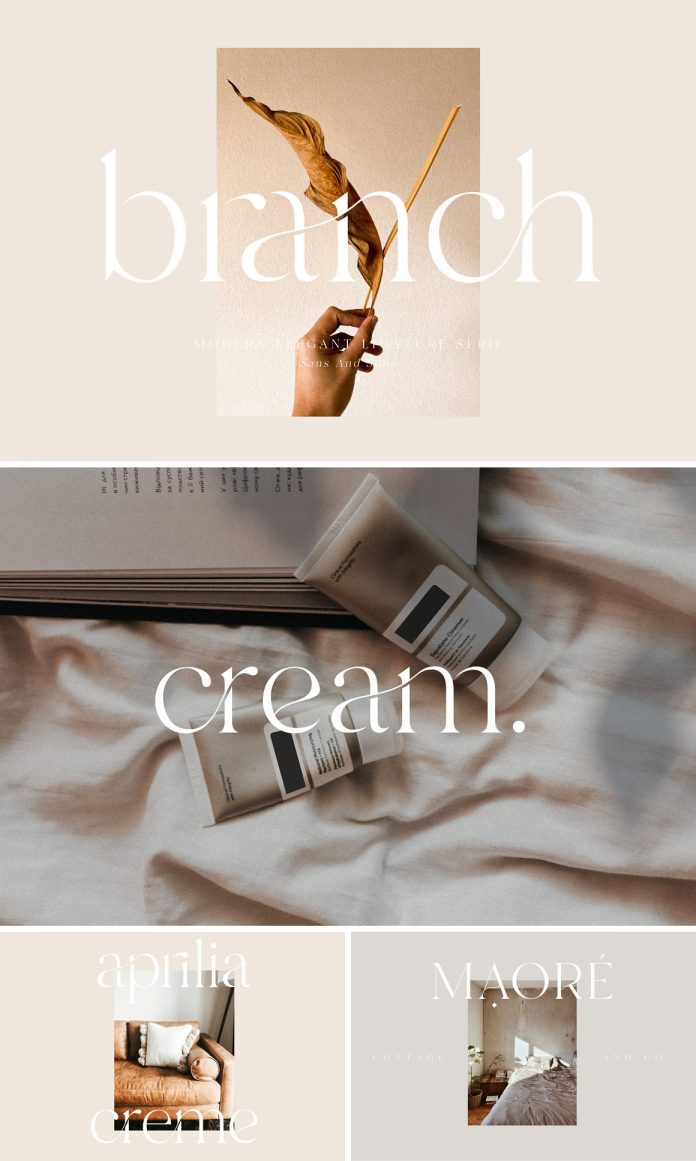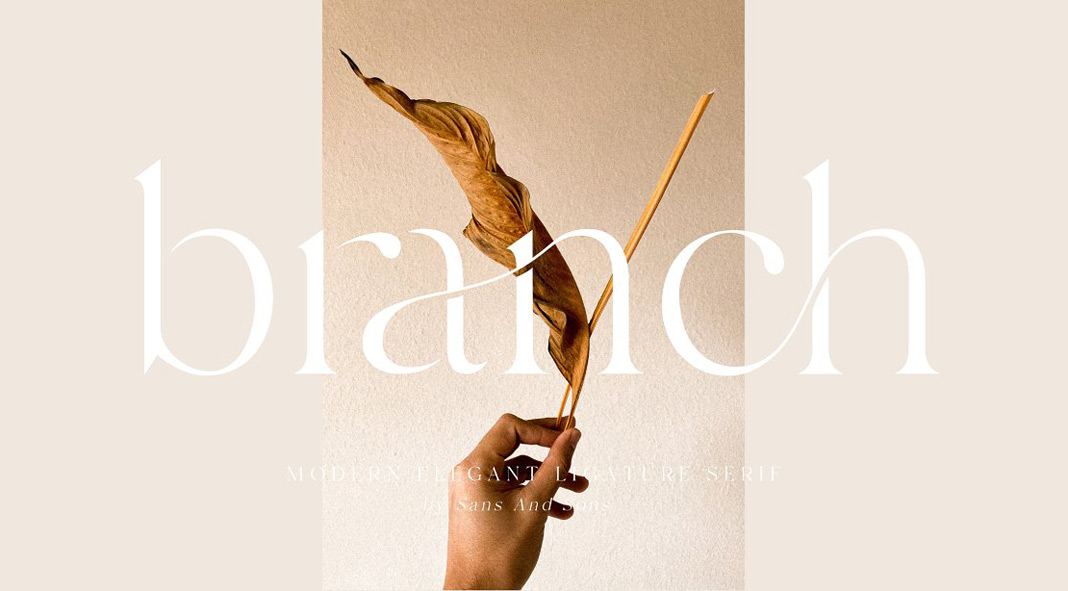
Branch, an elegant ligature font designed and published by Sans & Sons.
Released in the summer of 2020 by the team of Sans & Sons, Branch is a new ligature font. Its elegant look is well suited for eye-catching headlines, logotypes, and short quotes. This unique typeface is truly a great choice for all branding projects that require a particularly elegant display typeface. The character set supports multiple languages and the great range of ligatures makes every design a real eye-catcher. This beautiful font is currently available for a very low budget. For further information, just click on the following link or have a look at the images below.